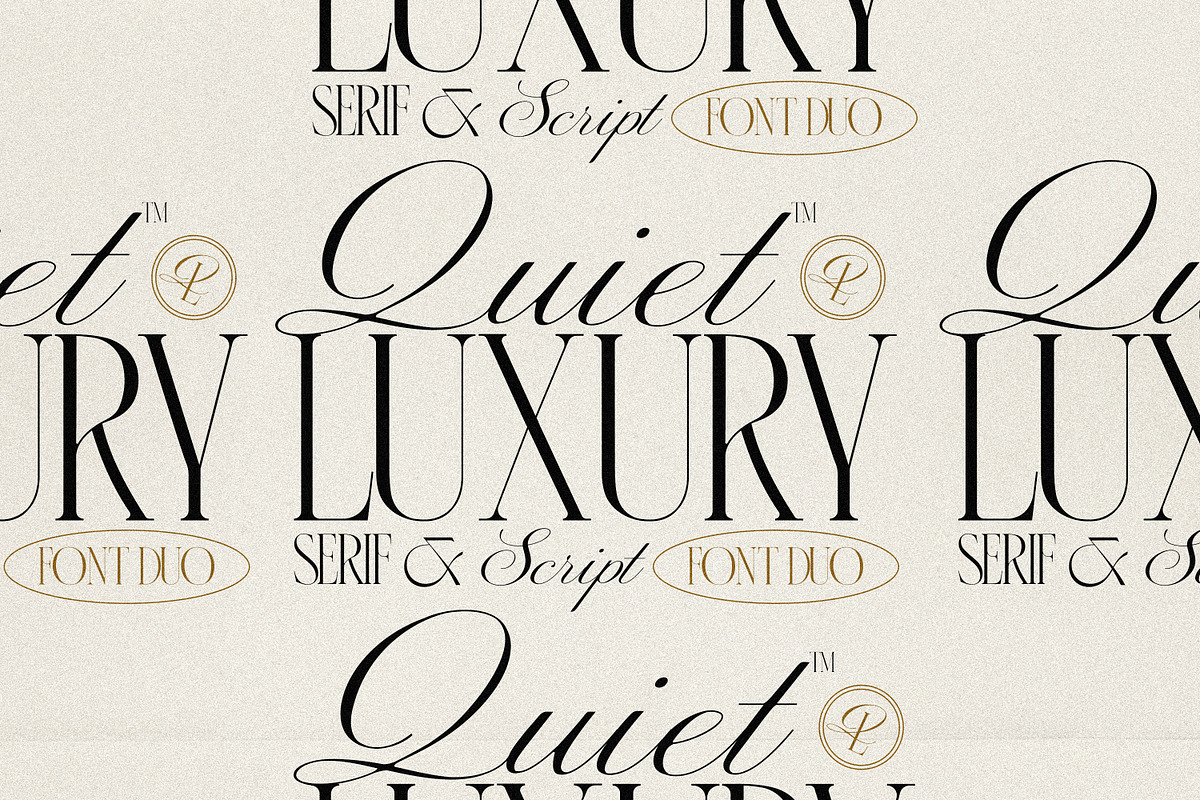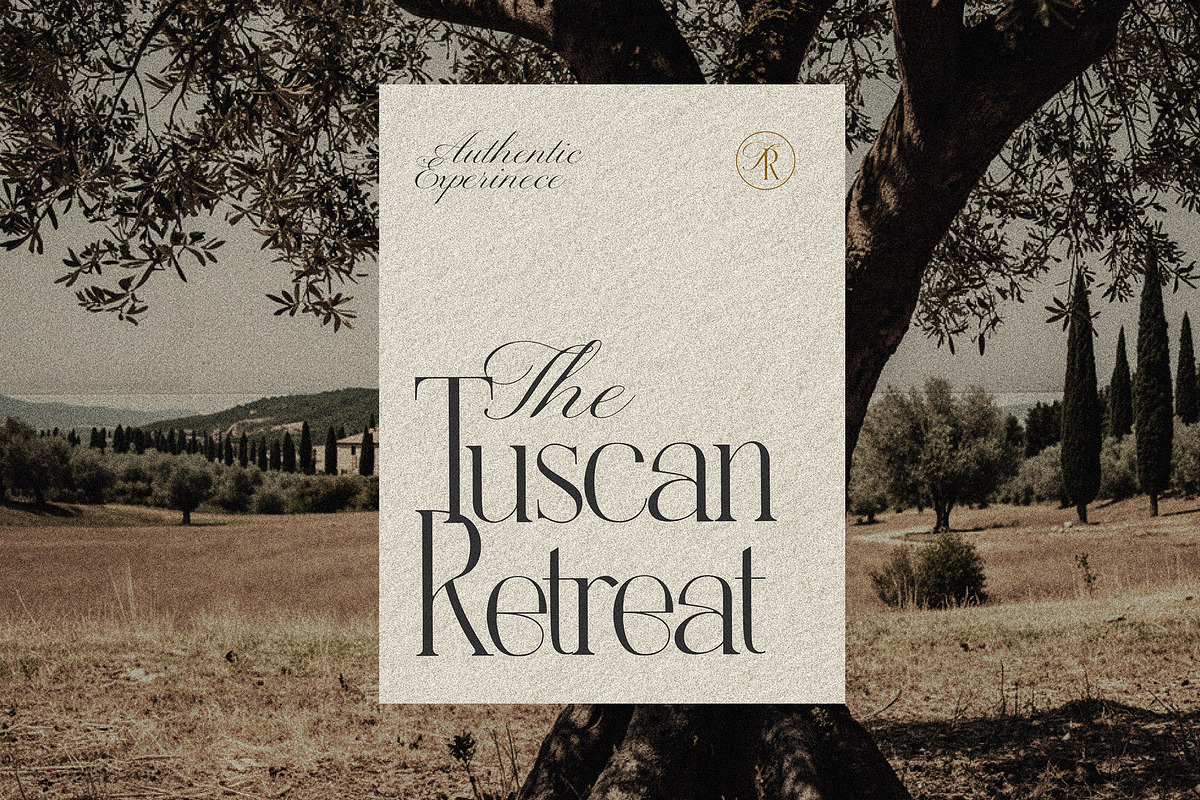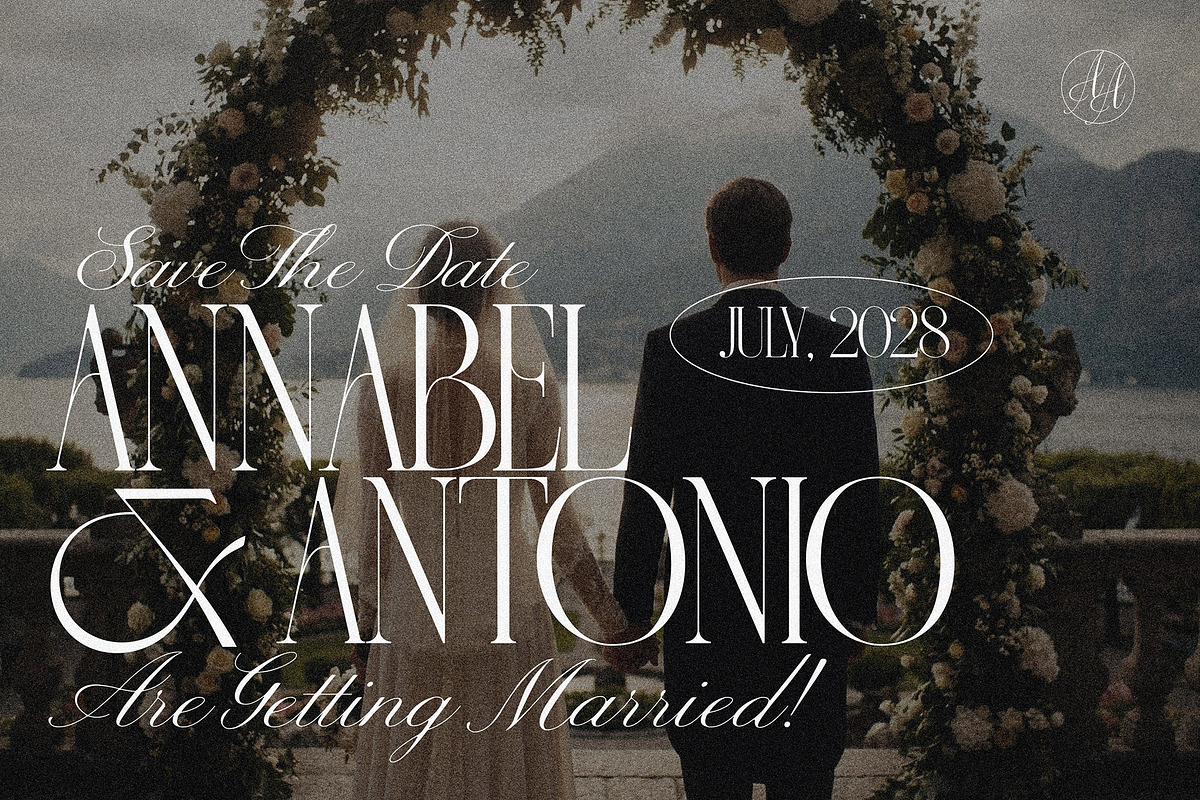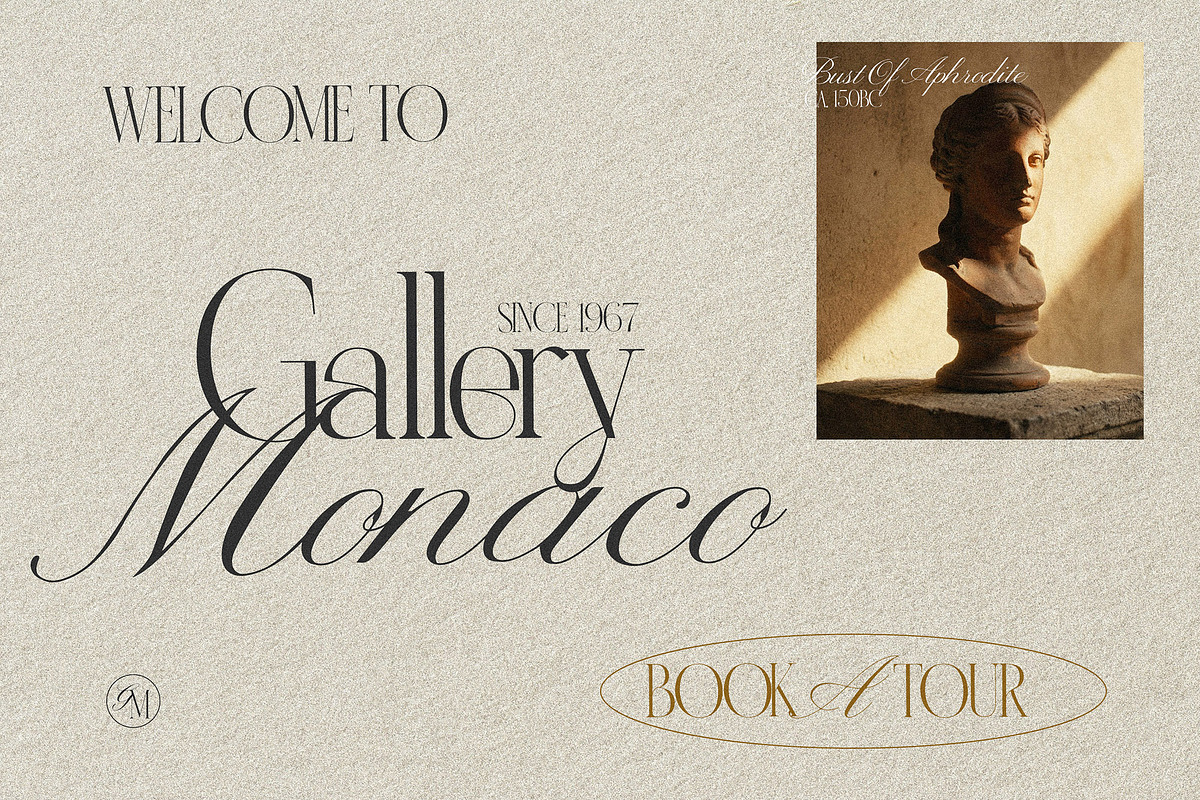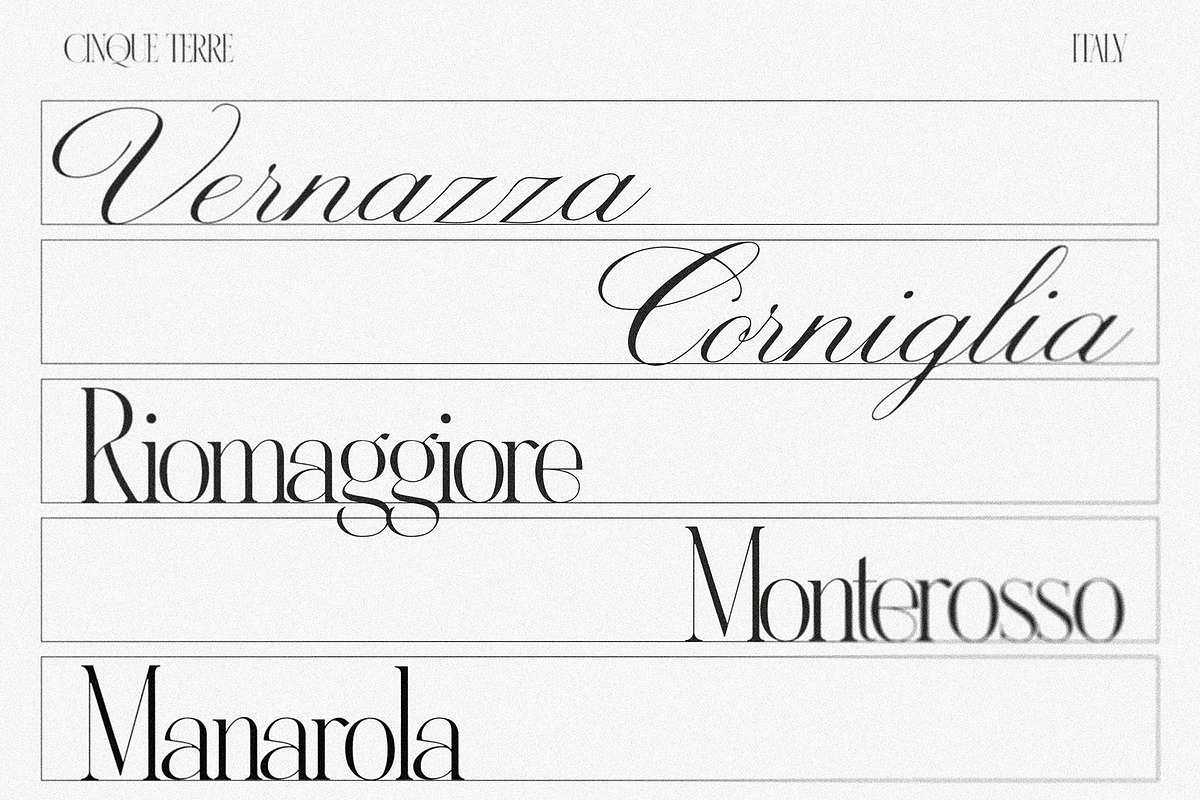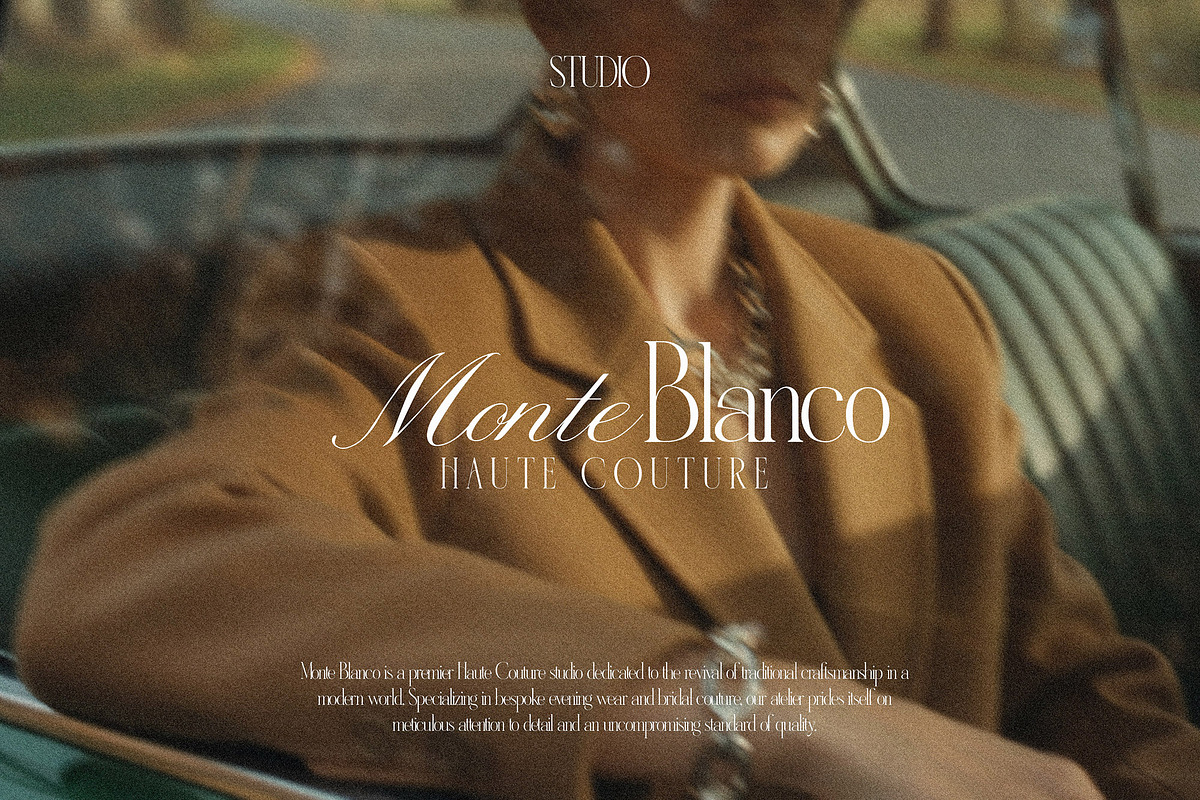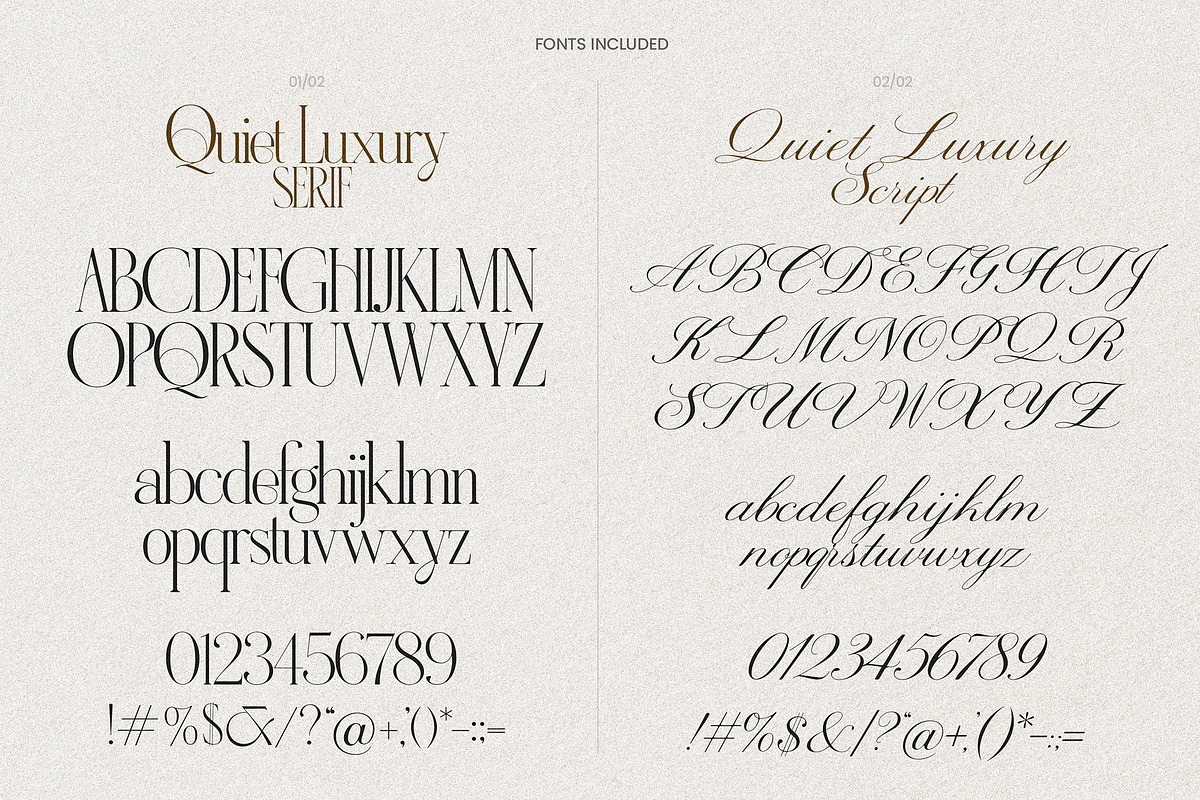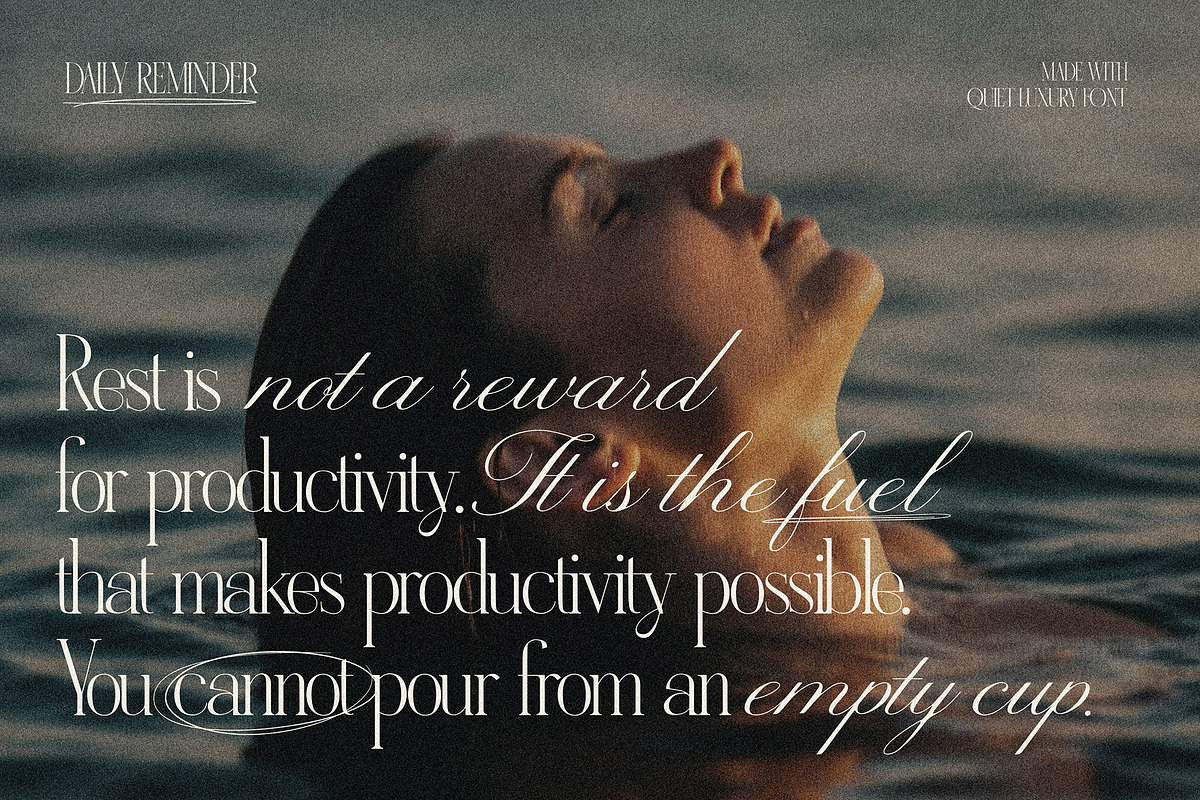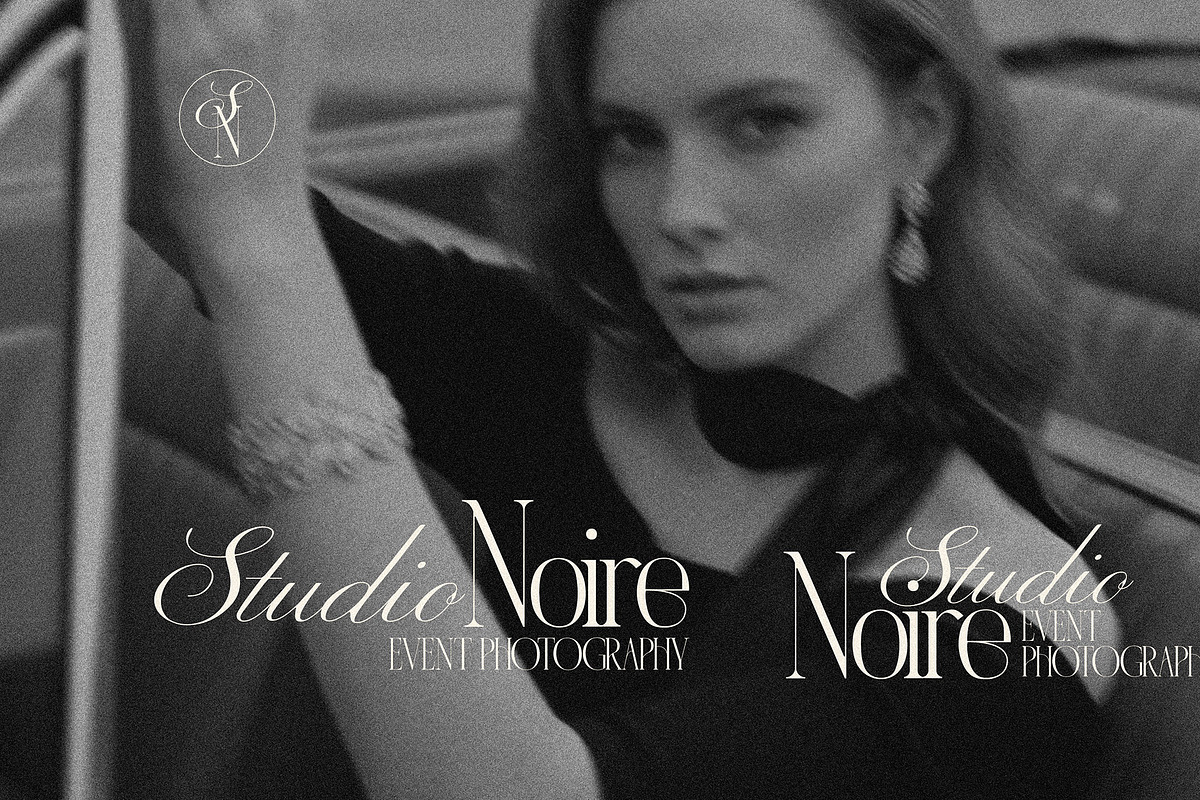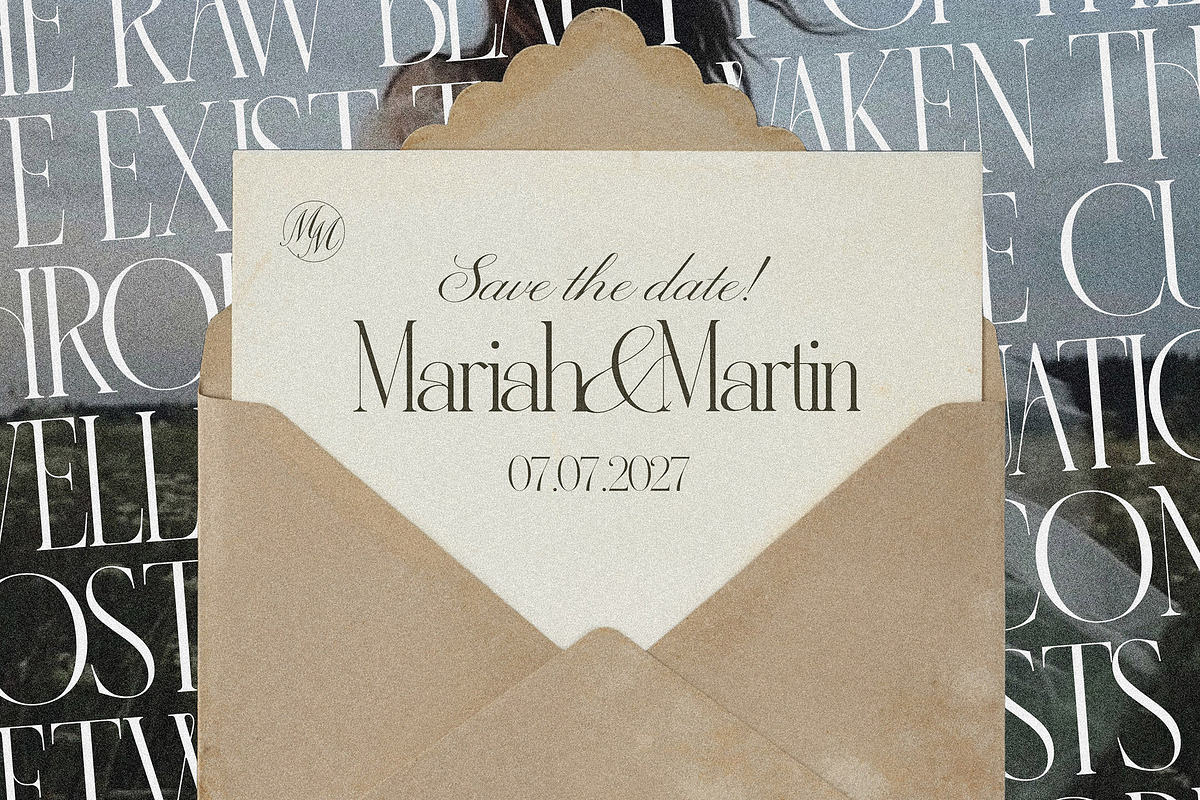
Quiet Luxury - Modern Serif & Script
Introducing the Quiet Luxury Font Duo—a perfectly curated pairing of a tall, high-contrast serif and a graceful, flowing calligraphy script. Inspired by high-end fashion houses and minimalist editorial design, this duo is designed for those who believe that true sophistication doesn't need to shout.
The Serif features elongated stems and delicate hairlines, providing a structured, architectural feel. The Script offers a fluid, hand-drawn contrast with sweeping swashes that add a touch of personal, human warmth. Together, they create a harmonious balance perfect for premium branding.
- Quiet Luxury Script (.otf): A flowing, elegant cursive with a vintage signature feel.
- Quiet Luxury Serif(.otf): A sophisticated, tall serif with high contrast.
- Luxury Branding: Logos for clothing brands, interior designers, or boutique hotels.
- Wedding Stationery: High-end invitations, menus, and place cards.
- Editorial Design: Magazine headlines, book covers, and fashion layouts.
- Social Media: Aesthetic quote graphics and mood board overlays.